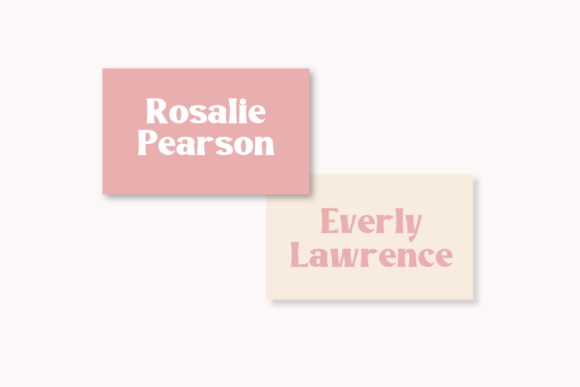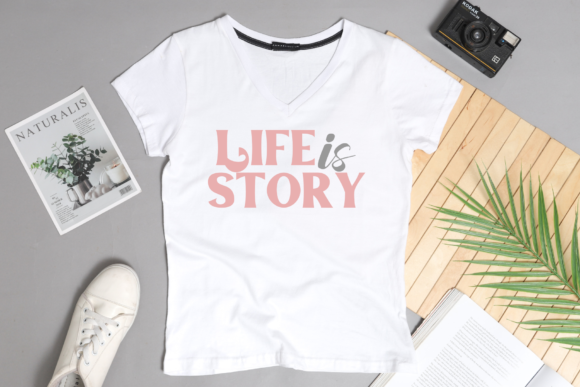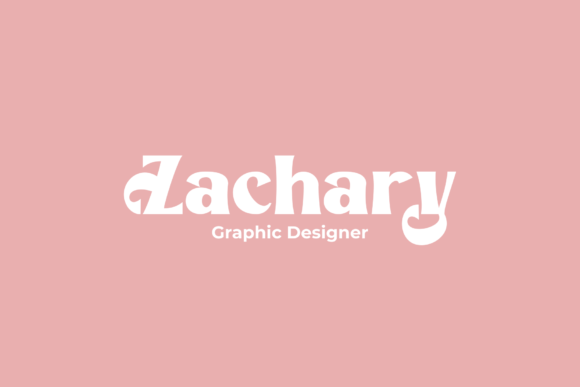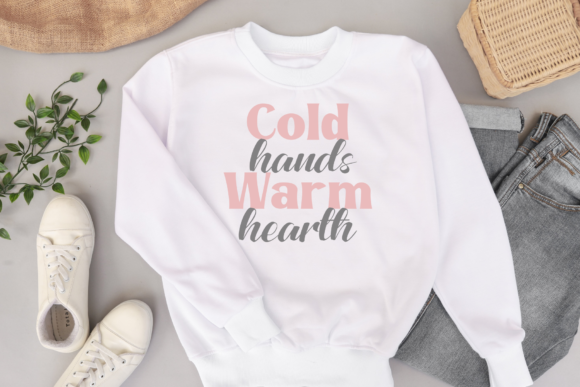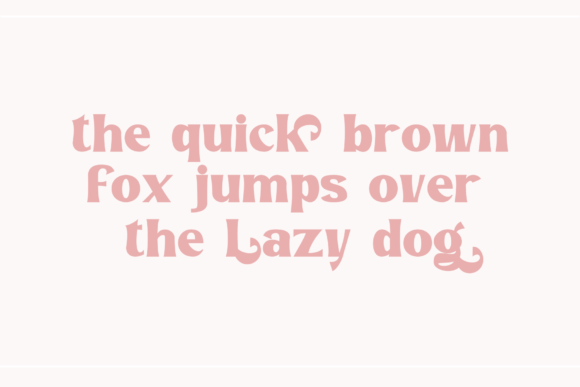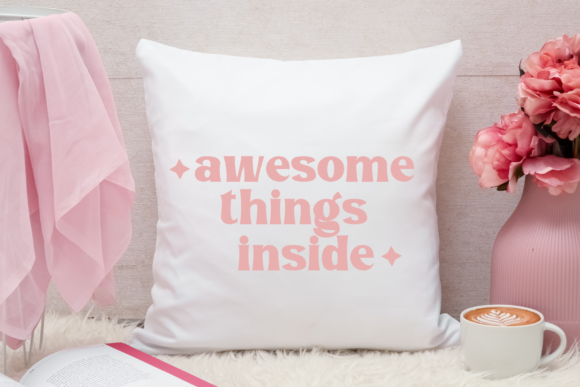
Introducing Avecrig Font: Elevate Your Designs with Elegance and Sophistication
In the world of typography, fonts play a crucial role in conveying the tone and personality of a design. For designers and crafters seeking a modern serif font that exudes elegance and coolness, look no further than Avecrig Font. This stunning font is perfect for a wide range of creative projects, from logos and branding to invitations, stationery, wedding designs, social media posts, and beyond.
The Beauty of Avecrig Font
Avecrig Font boasts a beautiful and modern serif design that is sure to captivate audiences. Its elegant and refined look makes it an ideal choice for designers who want to add a touch of sophistication to their work. The font’s sleek lines, precise curves, and balanced proportions create a visually appealing aesthetic that is both timeless and trendy.
One of the best things about Avecrig Font is its versatility. Its modern serif design makes it suitable for a wide range of design applications, including:
- Invitations and Stationery: Add a touch of elegance to your invitations, business cards, and letterheads.
- Wedding Designs: Make your wedding stationery, signage, and decor truly unforgettable with Avecrig Font.
- Social Media Posts: Elevate your social media game with stylish and engaging posts that showcase your brand’s unique voice.
Why Choose Avecrig Font?
So, what sets Avecrig Font apart from other fonts in the market? Here are just a few reasons why designers and crafters love working with this beautiful font:
- Elegant and Modern Design: Avecrig Font’s sleek and refined design makes it perfect for designers seeking a modern serif font.
- Highly Versatile: Use Avecrig Font for a wide range of design applications, from logos and branding to social media posts and wedding designs.
- Easy to Read: Avecrig Font’s clear and balanced design ensures that your text is easy to read, even at small sizes.
- Instant Results: With Avecrig Font, you can achieve professional-looking results in no time, making it perfect for designers and crafters with tight deadlines.
Tips for Using Avecrig Font
To get the most out of Avecrig Font, here are a few tips to keep in mind:
- Experiment with Font Sizes: Avecrig Font looks great at a range of font sizes, from large headings to smaller body text.
- Play with Colors: Try pairing Avecrig Font with different colors to create a unique and eye-catching design.
- Add Decorative Elements: Consider adding decorative elements, such as illustrations or graphics, to enhance your design.
| Font Name | Avecrig Font |
| Author | Rvandtype |
Avecrig Font is a beautiful and modern serif font that is sure to elevate your designs to the next level. Its elegant and cool look makes it perfect for a wide range of creative projects, from logos and branding to social media posts and wedding designs. With its versatility, ease of use, and instant results, Avecrig Font is a must-have for designers and crafters seeking a high-quality font that delivers. So why wait? Add Avecrig Font to your creative toolkit today and be amazed by its fantastic results!